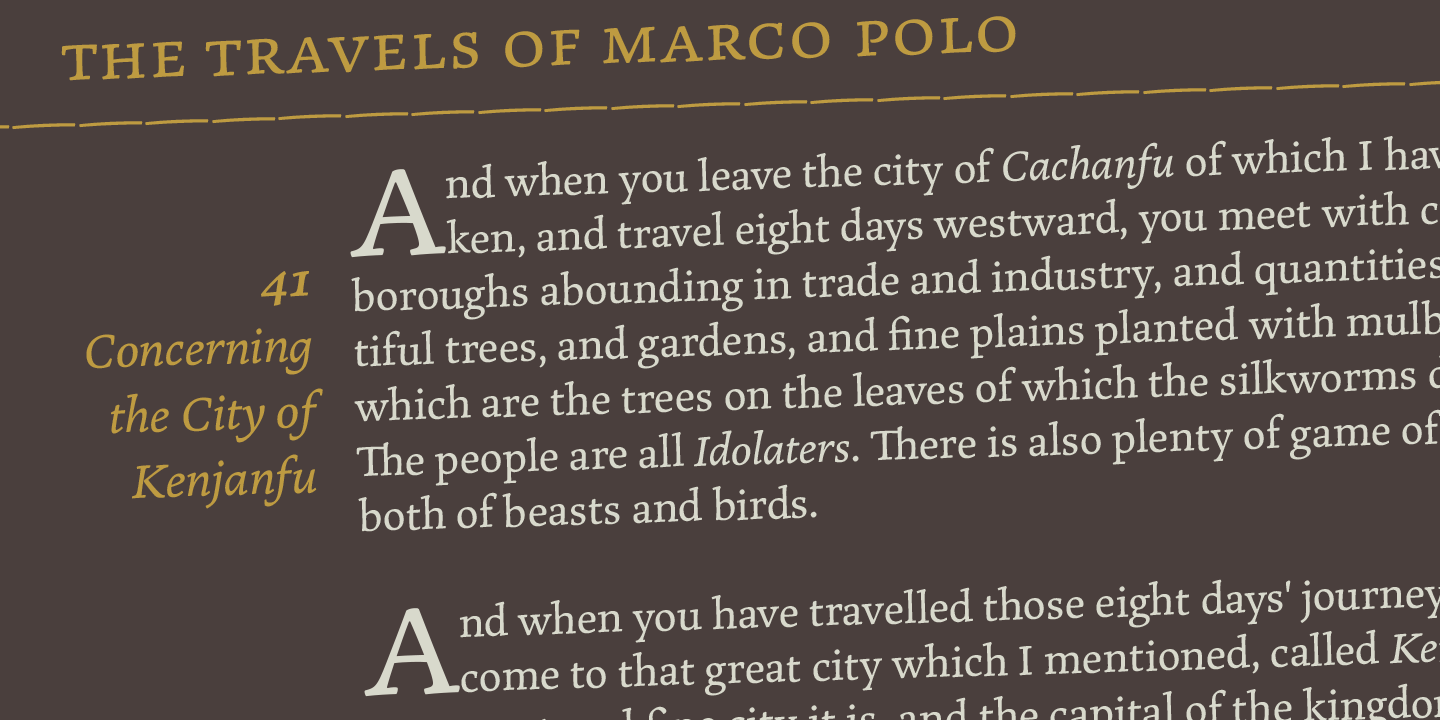
Marco Font is perfect for classic corporate branding, timeless business communications, traditional professional services, established institutional identities, formal documentation, heritage brand materials, conservative marketing campaigns, and distinguished organizational designs. This refined typeface excels in applications requiring enduring elegance and established credibility that conveys trustworthiness and professional heritage across traditional business environments and formal communication channels.
What makes Marco Font exciting is its timeless sophistication that embodies classic professional values through masterfully balanced letterforms with enduring appeal. The font features traditional character construction with refined proportions and classic styling that creates immediate confidence and professional recognition perfect for organizations seeking to establish lasting market presence through authentic traditional excellence and heritage-based brand positioning.
The Marco Font family includes comprehensive traditional weights and classic variations with heritage-focused elements, offering designers complete tools for creating distinguished professional communications. The family provides consistent classic aesthetic with strategic hierarchy options for effective traditional branding and formal documentation requiring genuine heritage character and institutional authority appeal.
Marco Font Free Download represents an outstanding choice for organizations seeking typography that embodies traditional excellence and classic professional values. Whether you're developing heritage brand identities, formal business communications, traditional service materials, or established institutional campaigns, this font provides the distinguished character needed for authentic heritage positioning and timeless professional brand presence.
The masterfully crafted letterforms of Marco Font ensure optimal legibility across all traditional applications while maximizing classic appeal and professional heritage, making it ideal for formal presentations, traditional documentation, and established business communications. This versatile typeface combines traditional excellence with contemporary technical standards for outstanding performance in professional environments requiring authentic heritage character and distinguished traditional presence.